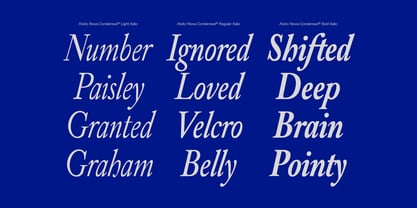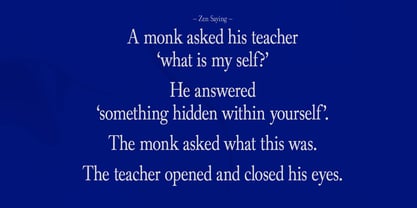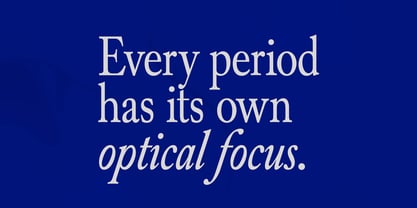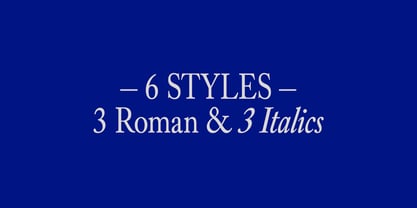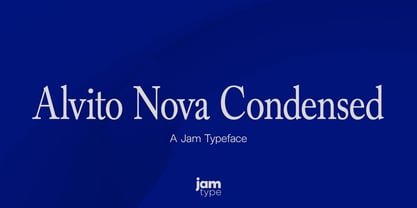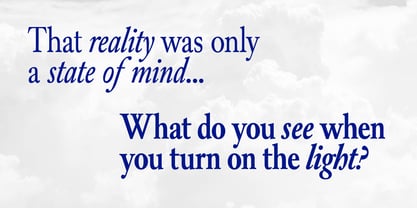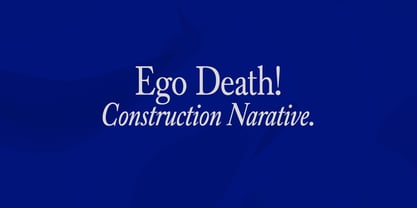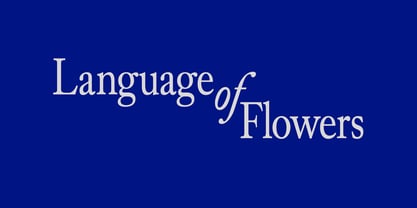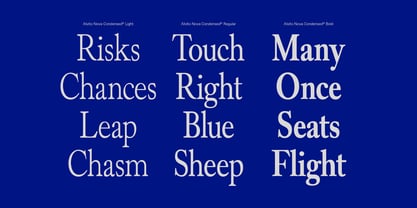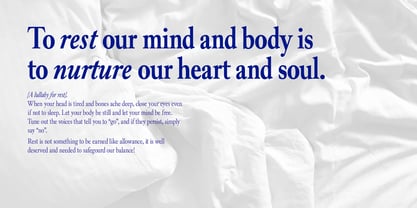
Alvito Nova Condensed
by JAM Type Design
The Alvito Nova Condensed Font Family was designed by João Symington and published by JAM Type Design. Alvito Nova Condensed contains 6 styles and family package options. More about this family
Alvito Nova Condensed – A Sleek Serif Typeface for Elegant Efficiency
Expanding on the timeless sophistication of Alvito Nova, Alvito Nova Condensed offers a refined balance between space efficiency and classic elegance. With its slim yet graceful proportions, this type family is designed to deliver impact and readability in tighter layouts while maintaining the signature sophistication of the original.
Crafted for editorial excellence, luxury branding, and high-end packaging, Alvito Nova Condensed is ideal for magazine headlines, refined advertising, and elegant website typography. Its harmonious blend of traditional serif details and modern compactness allows it to shine in both print and digital applications, making it a versatile tool for designers seeking both style and practicality.
With precise letterforms, balanced spacing, and a poised structure, Alvito Nova Condensed elevates any composition with a confident, polished presence. Whether used for branding, publishing, or digital experiences, this type family delivers sophistication with a contemporary edge.
Experience the refined versatility of Alvito Nova Condensed – where elegance meets efficiency.
Designers: João Symington
Foundry: JAM Type Design